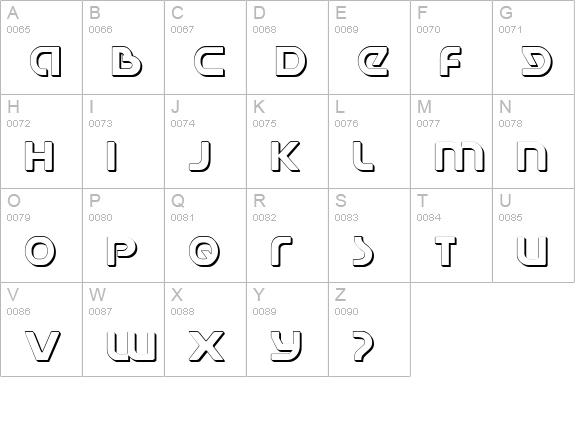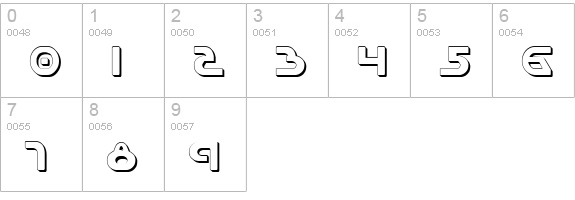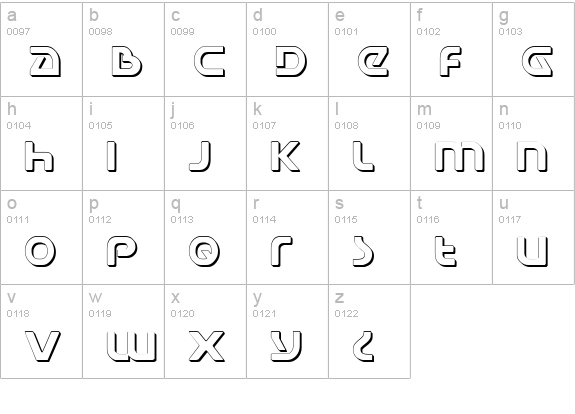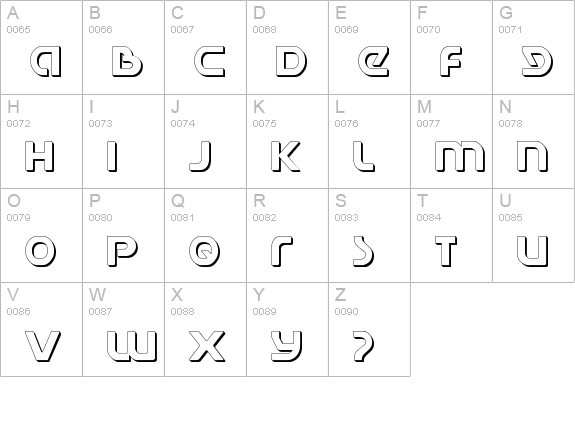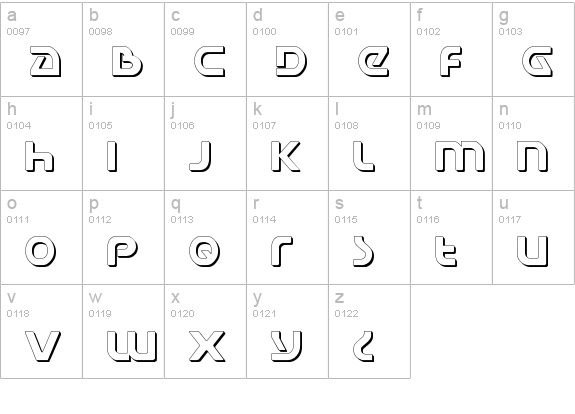
Universal Jack Shadow Font Details
Universal Jack Shadow font is a striking and versatile typeface that effortlessly combines elegance with a touch of mystery. Its bold and dramatic letterforms are perfect for making a statement in any design project. This font features a unique shadow effect that adds depth and dimension to each character, giving them a captivating and three-dimensional appearance. The shadow seamlessly follows the curves and lines of the letters, creating a visually stunning effect that is sure to capture attention. Universal Jack Shadow font is suitable for a wide range of design purposes, including logos, headlines, posters, and branding materials. Its clean and legible design ensures that your message will be conveyed with clarity and impact. The best part? Universal Jack Shadow font is available for free download at FontsMarket.com. This means that you can access this amazing font without any cost or limitations. Whether you are a professional designer or a hobbyist, you can freely use Universal Jack Shadow font to elevate your designs to new heights. Don't miss out on this incredible opportunity to enhance your projects with the elegance and allure of Universal Jack Shadow font. Download it for free at FontsMarket.com and let your creativity shine.